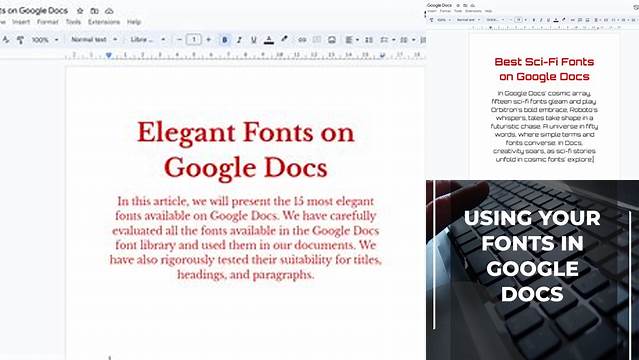
Amazing Google Docs Fonts: A Guide To Elevate Your Documents
Hey guys! Ever feel like your Google Docs are looking a little... blah? You're not alone! We've all been there, staring at the same old Times New Roman or Arial, wishing for a little more pizzazz. Well, you're in luck! Google Docs has a treasure trove of fonts just waiting to be discovered, and I'm here to guide you through the process of finding and using some of the most interesting fonts to make your documents pop. We'll dive into how to install new fonts, discuss some of the best options for different purposes, and explore tips on how to use them effectively. So, grab your favorite beverage, get comfy, and let's jazz up those Google Docs!
Discovering the World of Fonts in Google Docs
First things first, let's talk about how to actually find these awesome fonts. Google Docs makes it super easy. When you're in your document, look up at the top where the font selection dropdown is. It usually defaults to Arial or something similar. Click on that, and you'll see a list of the fonts that are already available. But, the real magic happens when you click on "More fonts..." at the top of the list. This opens up the Font gallery, and trust me, it's a goldmine! Here, you'll find hundreds of fonts, ready to be added to your Google Docs arsenal. You can browse by different categories like Serif, Sans Serif, Handwriting, Monospace, and more. This is a great way to narrow down your choices if you have a specific style in mind. For instance, if you're working on something formal, you might start by exploring the Serif fonts, which often have a more classic and professional feel. If you're after a more modern look, the Sans Serif options are your go-to. If you're feeling creative and want to mimic a handwritten style, explore the Handwriting fonts. And don't forget Monospace for a coding vibe or a retro feel! When you find a font you like, click the "OK" button, and it will be added to your font list in Google Docs. From then on, it's just a click away! Experimenting is key here, guys. Don't be afraid to try out different fonts to see what works best for your specific document. Remember that a good font choice isn't just about aesthetics; it's also about readability and conveying the right tone. Different fonts evoke different feelings and can influence how your audience perceives your content. Now, let's delve into some specific font recommendations to get you started.
Top Font Choices for Various Document Types
Alright, let's get down to brass tacks and talk about some specific font recommendations. Choosing the right font is crucial, as it significantly impacts the readability and overall aesthetic of your documents. Here are some awesome font recommendations tailored for different types of documents:
For Professional Documents
When it comes to professional documents like reports, resumes, and business proposals, clarity and professionalism are key. You want a font that is easy to read, clean, and doesn't distract from the content. My top picks include: Open Sans, a clean and versatile sans-serif font that's great for body text and headings. Its simple design makes it highly readable, and it works well at various sizes. Lato, a sans-serif font known for its friendly and approachable look, yet still maintains a professional feel. It's a good choice for documents where you want to convey a sense of clarity and approachability. Roboto, a modern sans-serif font developed by Google, is another excellent choice. It's very readable and well-suited for online and print documents. For a more classic feel, consider using a serif font like: PT Serif, a well-designed serif font that provides a touch of elegance and readability. It's great for longer blocks of text. Georgia, a classic serif font that is designed for on-screen readability, and it's another reliable choice for reports and business documents. When using these fonts, keep in mind that the font size is also important. For body text, typically use a size between 11 and 12 points. For headings, use a larger size to make them stand out. Also, be consistent with your font choices throughout the document. Stick to two or three fonts maximum to maintain a clean and professional look. For instance, use Open Sans for body text, Lato for subheadings, and a serif font for the title.
For Creative Projects
If you're working on something more creative, like a flyer, a poster, or a social media graphic, you have more freedom to experiment with bolder and more expressive fonts. Here are some of my favorite fonts for creative projects: Dancing Script, a beautiful handwriting-style font that adds a touch of elegance and personality. Great for invitations, greeting cards, and headlines. Pacifico, a playful and casual script font inspired by vintage surf culture. Ideal for creating a fun and friendly vibe. Bangers, a bold and eye-catching font that's perfect for headlines and titles. This font is ideal to make the document noticeable at first sight. Permanent Marker, a font that mimics the look of a handwritten marker. It's a fun choice for adding a personal touch. Montserrat, a geometric sans-serif font that is versatile and easy to read, making it perfect for a variety of creative projects. When using creative fonts, consider the overall design and purpose of your project. The font should complement the visuals and convey the desired message. Don't be afraid to try out different combinations and see what works. However, be mindful of readability, especially for body text. Avoid using overly decorative or difficult-to-read fonts for large blocks of text. Sometimes, it’s better to use the eye-catching fonts to catch the reader's attention, and then use the more traditional fonts for the body text.
For Documents with Code
If you're a programmer or a developer, or just someone who works with code, you'll want a font that is specifically designed for readability in a coding environment. These fonts are typically monospaced, meaning that each character takes up the same amount of horizontal space, making it easier to align and read the code. Some of the best fonts for code in Google Docs include: Roboto Mono, a monospaced variant of the popular Roboto font family. It's very readable and works well on both screens and print. Courier New, a classic monospaced font that has been a favorite among programmers for decades. Source Code Pro, a monospaced font designed by Adobe, is a clean and modern choice for coding. It's also very readable and supports a wide range of characters. Inconsolata, a monospaced font with a unique and modern look. It's a great choice if you want something that stands out from the crowd. When choosing a font for code, readability is the most important factor. Make sure that the font is easy to distinguish between different characters, such as the number 0 and the letter O. Also, consider the font size and spacing. A larger font size and more generous spacing can improve readability, especially on smaller screens. Remember to test the font with your code to make sure that it works well for your specific needs. You can also adjust the font's letter spacing and line height in Google Docs to further improve readability. This is a quick way to help make the overall reading process way more easy.
Tips for Effective Font Usage in Google Docs
Now that we've covered some of the best font choices, let's talk about some general tips for using them effectively. This will help you make the best use of those interesting fonts we've talked about.
Font Pairing
One of the most important things to consider is font pairing. Choosing the right fonts to complement each other can make a huge difference in the look and feel of your document. As a general rule, avoid pairing fonts that are too similar. Instead, try to find fonts that have contrasting styles. For instance, you might pair a clean sans-serif font with a more decorative serif font. Using online tools can help you find the perfect match. These tools can suggest font pairings based on your initial font selection. They also show you examples of how the fonts will look together. When experimenting with font pairings, be sure to focus on readability and visual balance. If you're unsure where to begin, look for templates and examples of well-designed documents, and note the font choices. Also, remember that you can mix and match fonts within a document. Just be consistent with your choices. If you use a particular font for headings, use the same font for all headings. And if you use a particular font for body text, stick to it throughout the document. This will give your document a polished and professional look.
Font Size and Spacing
The size and spacing of your text are just as important as the font itself. Make sure the font size is appropriate for the type of document you're creating. For body text, typically use a size between 11 and 12 points. For headings, use a larger size to make them stand out. Experiment with different font sizes to see what works best for your document. You can also use different font sizes to create visual hierarchy, making it easier for the reader to understand the structure of your document. Similarly, pay attention to the spacing between lines of text. This is often referred to as line height or leading. Sufficient space between lines of text will improve readability and make the document more comfortable to read. A general guideline is to set the line height to about 1.2 to 1.5 times the font size. Google Docs makes it easy to adjust the line height using the line spacing options in the toolbar. Consider also the spacing between paragraphs. Adding extra space between paragraphs can create visual breaks and make your document more organized. Google Docs allows you to easily adjust the spacing before and after paragraphs using the paragraph spacing options.
Consistency and Purpose
Consistency is key! Once you've chosen your fonts, stick with them throughout the document. Avoid using too many different fonts, as this can make your document look cluttered and unprofessional. A good rule of thumb is to use a maximum of two or three fonts. And don’t use too many variations of font size, style (bold, italic, underline), and color. If you do, it could be distracting. Make sure the fonts you choose are appropriate for the purpose of your document and your target audience. For example, a formal business report would call for a more professional font, while a flyer for a kids' party could use a more playful font. Always keep in mind how your fonts are reflecting the information you are conveying. Always remember that your font choices should enhance the readability and visual appeal of your document, not distract from it. The best fonts are ones that communicate your message clearly and effectively.
Wrapping Up: Unleash Your Creativity
So, there you have it, guys! A deep dive into the world of interesting fonts in Google Docs. Now, go forth and experiment! Don't be afraid to try new things and find the perfect fonts to bring your documents to life. Remember that choosing the right fonts is an art, so take your time, explore the options, and have fun with it. Play around with different combinations, and consider the audience, and the purpose of your document. With a little creativity and experimentation, you can transform your Google Docs from plain to amazing. Happy font hunting! And don’t forget to share your creations and font discoveries with the world!